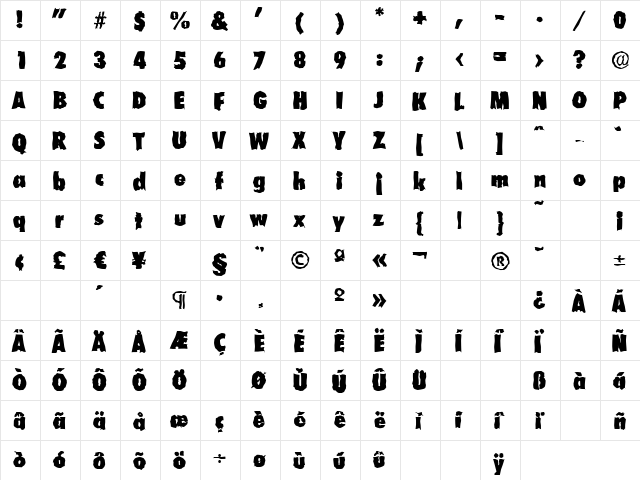
PeterBeckerCondRandom-Heavy Regular
Design Context for PeterBeckerCondRandom-Heavy Typeface
PeterBeckerCondRandom-Heavy is a composed and adaptable typeface that performs quietly and consistently across a wide range of design contexts. Its narrow stance lets it pack a punch even in space-constrained designs.